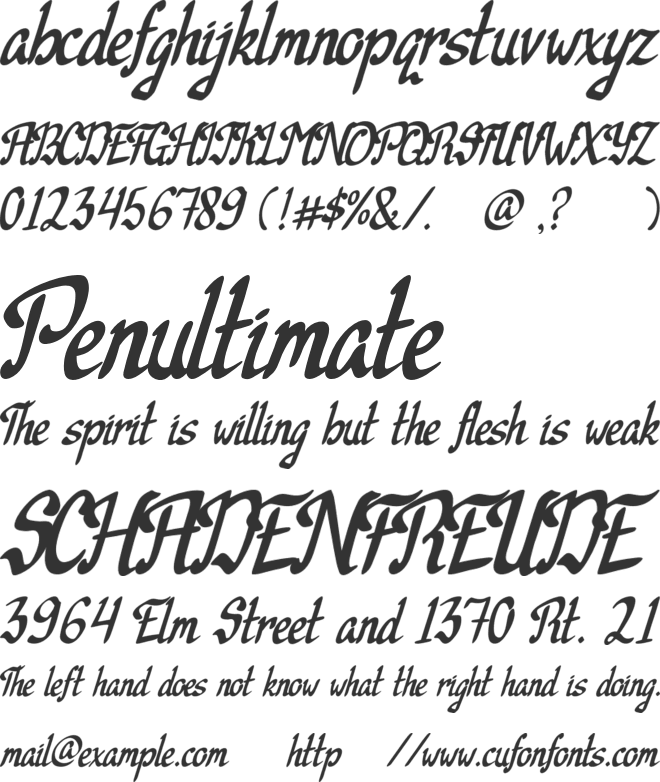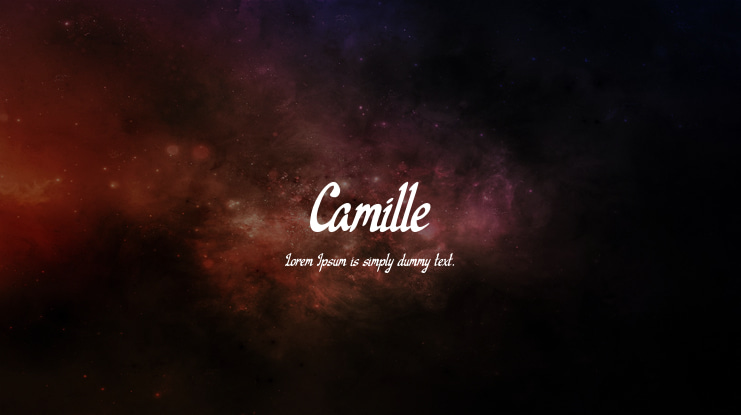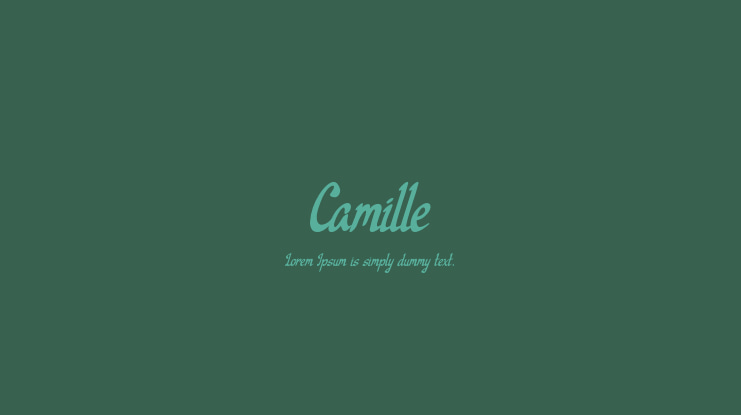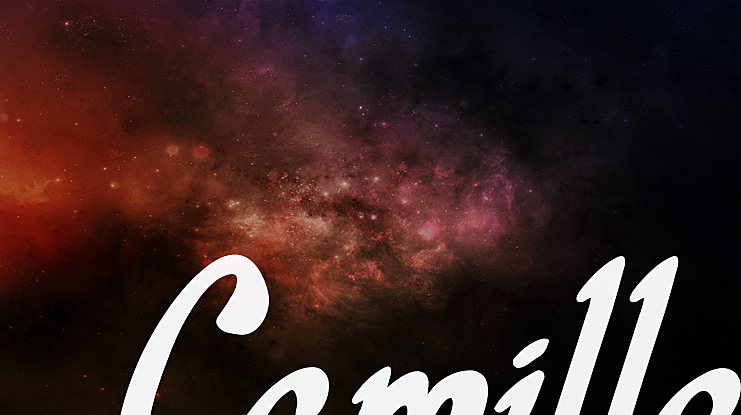
Camille Font
Camille is a font with tight kerning and bold strokes giving casual yet formal vibe. Camille portrays charm, elegance and femininity. It is perfect for typography on products, branding, invitations, flyers, posters, wedding invitation, and more.Features: Uppercase & Lowercase, Numerals & Punctuations (OpenType Standard), Ligatures, Stylistic Alternates, Final Form, Terminal Form, and Swash.Purchase a commercial license at .